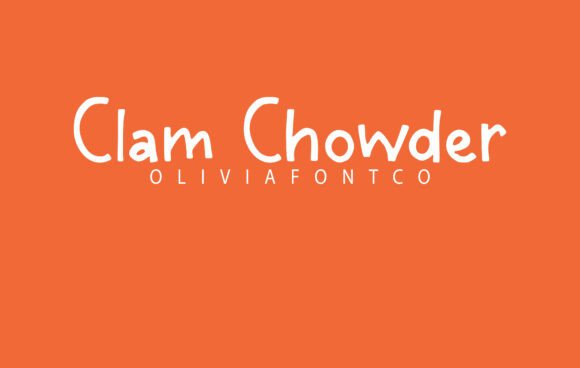
Introducing Clam Chowder Font: The Perfect Addition to Your Creative Projects
Are you looking for a font that can add a touch of romance and elegance to your creative projects? Look no further than Clam Chowder Font. This authentic handwritten font is expertly designed to capture the hearts of designers and audiences alike. With its unique blend of sophistication and playfulness, Clam Chowder Font is the perfect choice for a wide range of design applications.
What Makes Clam Chowder Font So Special?
Clam Chowder Font is more than just a font – it’s an experience. Its romantic touch and authentic handwritten style make it stand out from the crowd. The font is designed to be highly legible, making it perfect for use as both title and body text. Whether you’re working on a magazine headline, social media post, branding campaign, wedding invitation, or card, Clam Chowder Font is the perfect choice.
Key Features of Clam Chowder Font
- Authentic Handwritten Style: Clam Chowder Font boasts an authentic handwritten style that adds a personal touch to any design project.
- Romantic Touch: The font’s romantic touch makes it perfect for designs that require a touch of elegance and sophistication.
- High Legibility: Clam Chowder Font is designed to be highly legible, making it perfect for use as both title and body text.
- Versatile: The font is perfect for a wide range of design applications, including magazine headlines, social media posts, branding campaigns, wedding invitations, cards, and more.
Uses of Clam Chowder Font
Clam Chowder Font is a versatile font that can be used in a variety of design applications. Here are some of the most popular uses of the font:
- Magazine Headlines: Clam Chowder Font is perfect for magazine headlines that require a touch of elegance and sophistication.
- Social Media Posts: The font is great for social media posts that require a personal touch.
- Branding Campaigns: Clam Chowder Font is perfect for branding campaigns that require a unique and memorable font.
- Wedding Invitations: The font’s romantic touch makes it perfect for wedding invitations and other wedding-related designs.
- Cards: Clam Chowder Font is great for designing cards for special occasions such as birthdays, anniversaries, and holidays.
Why Choose Clam Chowder Font?
There are many fonts available in the market, but Clam Chowder Font stands out from the rest. Here are some reasons why you should choose Clam Chowder Font for your next design project:
- Unique Style: Clam Chowder Font has a unique style that is both authentic and romantic.
- High Quality: The font is expertly designed to ensure high quality and legibility.
- Versatile: Clam Chowder Font is perfect for a wide range of design applications.
- Easily Readable: The font is designed to be easily readable, making it perfect for use as both title and body text.
Tips for Using Clam Chowder Font
Here are some tips for using Clam Chowder Font in your design projects:
- Use it as a Title Font: Clam Chowder Font is perfect for use as a title font for magazine headlines, social media posts, and branding campaigns.
- Use it as a Body Font: The font is also great for use as a body font for blog posts, articles, and other written content.
- Experiment with Different Sizes: Clam Chowder Font looks great in different sizes, so experiment with different sizes to find the one that works best for your design.
- Pair it with Other Fonts: The font pairs well with other fonts, so feel free to experiment with different font combinations to find the one that works best for your design.
Clam Chowder Font is a unique and versatile font that is perfect for a wide range of design applications. Its authentic handwritten style, romantic touch, and high legibility make it a great choice for designers who want to add a personal touch to their designs. Whether you’re working on a magazine headline, social media post, branding campaign, wedding invitation, or card, Clam Chowder Font is the perfect choice. So why wait? Download Clam Chowder Font today and take your creative projects to the next level!
- What is Clam Chowder Font?: Clam Chowder Font is an authentic handwritten font with a romantic touch.
- What is Clam Chowder Font used for?: Clam Chowder Font is perfect for a wide range of design applications, including magazine headlines, social media posts, branding campaigns, wedding invitations, cards, and more.
- Is Clam Chowder Font legible?: Yes, Clam Chowder Font is designed to be highly legible, making it perfect for use as both title and body text.